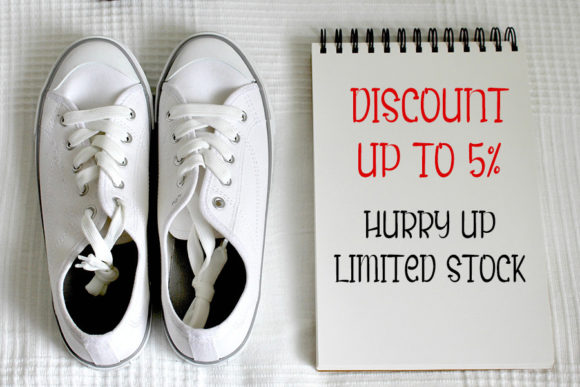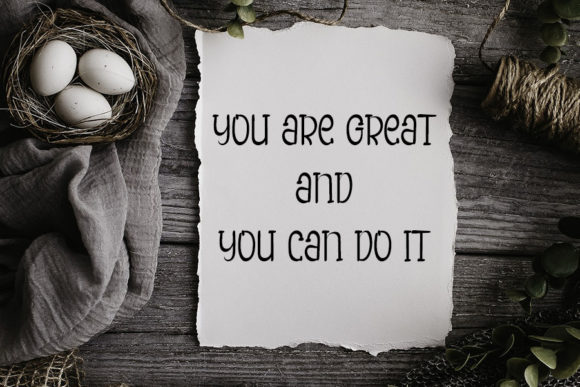
Fairy Stories Font
db-ku.com - Script & Handwritten -- Fairy Stories is a playful and smart handwritten font with an impeccable form, inspired by a timeless calligraphy. Balanced and varied, this font was designed to enhance the beauty of your projects.